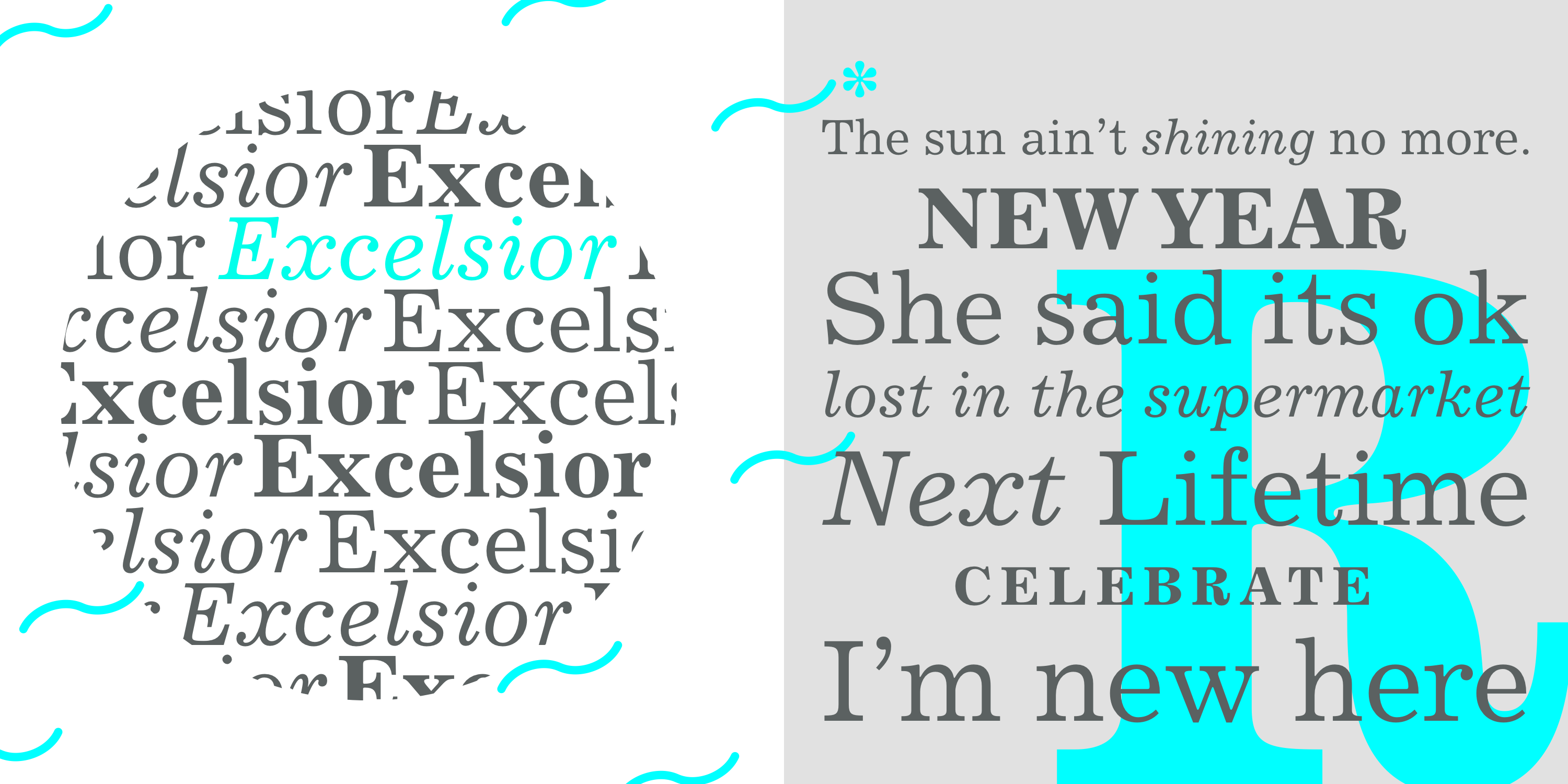
The Excelsior LT Font is an excellent choice for designs that demand a clear, highly legible, and robust aesthetic, particularly well-suited for traditional newspaper and magazine typography. Imagine it forming the reliable backbone of a distinguished newspaper's body text, providing impeccable clarity for academic journals, or ensuring comfortable reading in long-form editorial content. It's also perfectly suited for corporate reports, legal documents, book publishing, and any project where the primary goal is to convey information efficiently and without visual distraction, prioritizing readability and professionalism. Its balanced letterforms and thoughtful spacing make it ideal for conveying authority and ease of comprehension.
What makes the Excelsior LT Font so exciting is its historical reputation as a workhorse typeface, specifically engineered for optimal legibility even at smaller sizes and in demanding print conditions. It features well-defined characters that minimize eye strain and enhance reading flow, making it a dependable choice for any text-heavy application. This font has a confident and reliable presence that can instantly elevate your design, making it feel both established and remarkably accessible. It's designed for optimal performance in environments where clear communication is paramount, ensuring your message is not just seen, but effortlessly absorbed and understood.
The Excelsior LT Font family typically includes a comprehensive range of weights, from a lighter, more subtle cut to a robust bold for emphasis, often accompanied by matching italic versions. This extensive range provides designers with ample flexibility to create clear visual hierarchies and add gentle contrast within their typography. With its broad character set, it supports multiple languages, further expanding its global applicability for various textual and informational contexts. Discover the dependable clarity of Excelsior LT Font Free Download for your next project focused on effective communication.